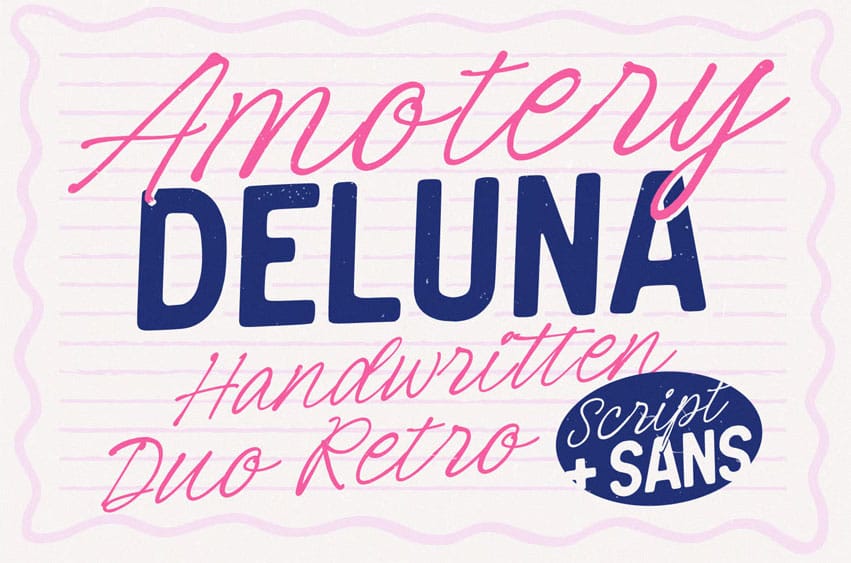
Amoetry Deluna Font is a beautiful script and sans serif font duo designed to bring versatility, and professional charm. The script font in Amotery Deluna is crafted with smooth, flowing strokes that connect naturally between letters, replicating the authentic movement of real handwriting. In contrast, the bold uppercase sans serif provides balance with its clean, confident lines and strong presence. Together, these two styles create a cohesive and polished look that works beautifully across both print and digital designs. In addition, enjoy the features here.
Amotery Deluna fits in branding, quotes, invitations, logos, posters, and many more designs. Find out more ways to use this font by taking a look at the font preview.